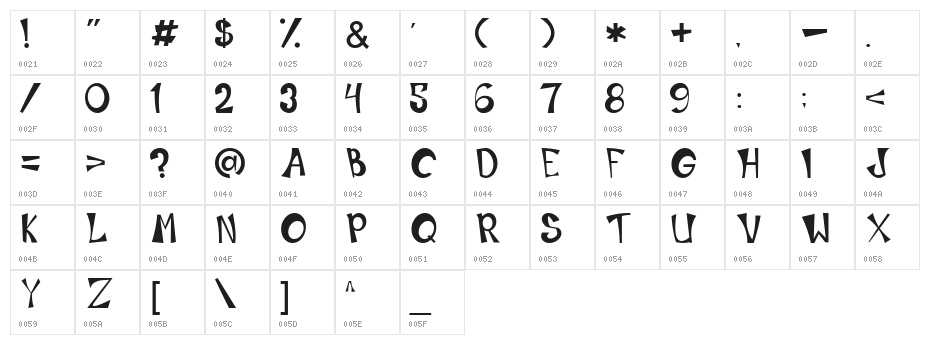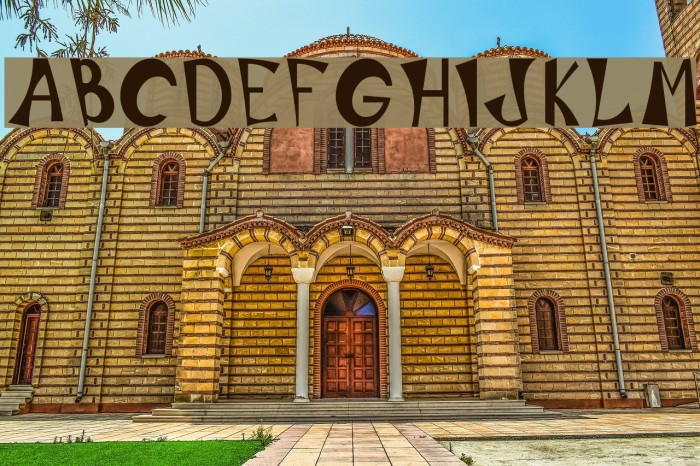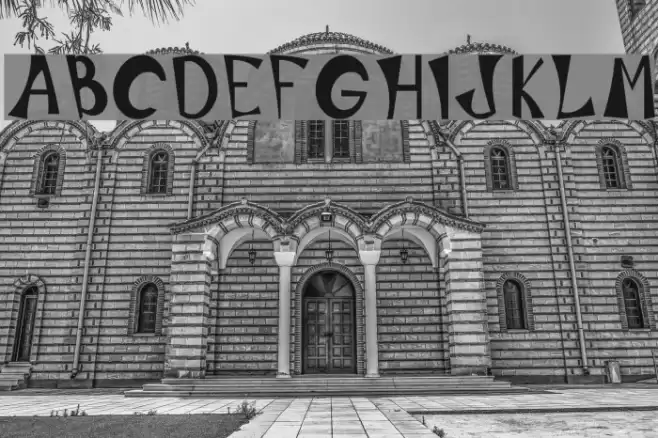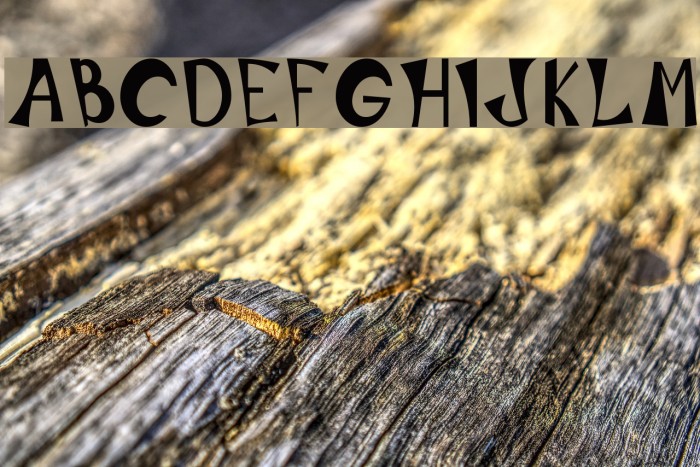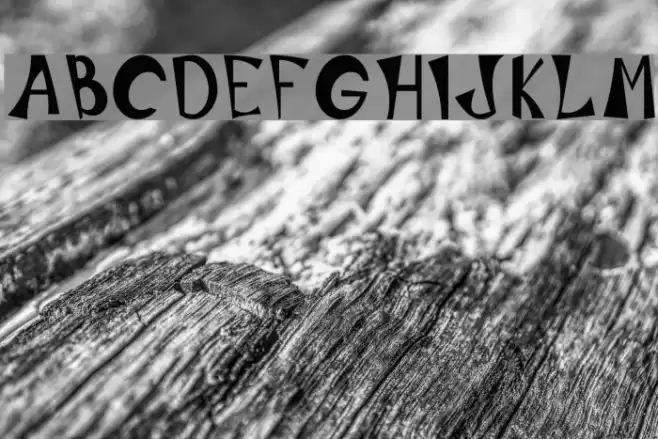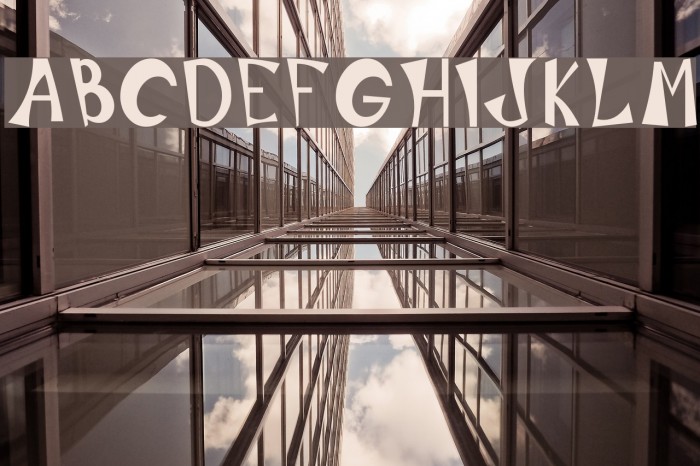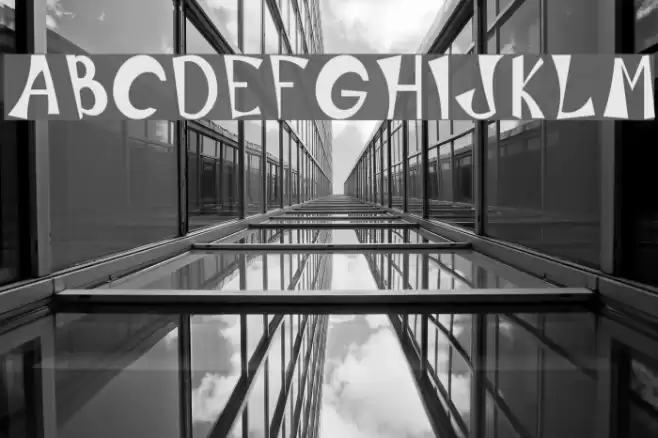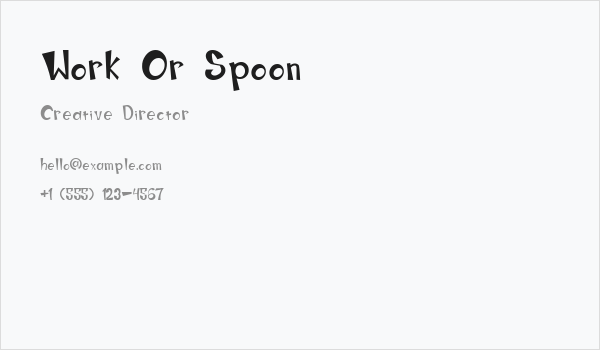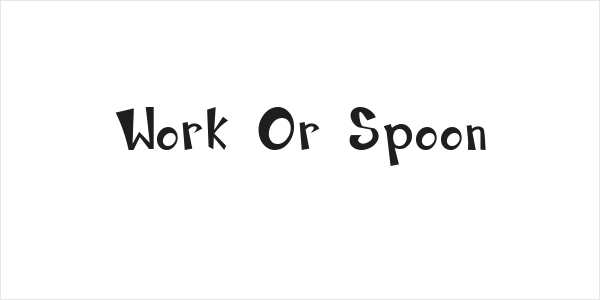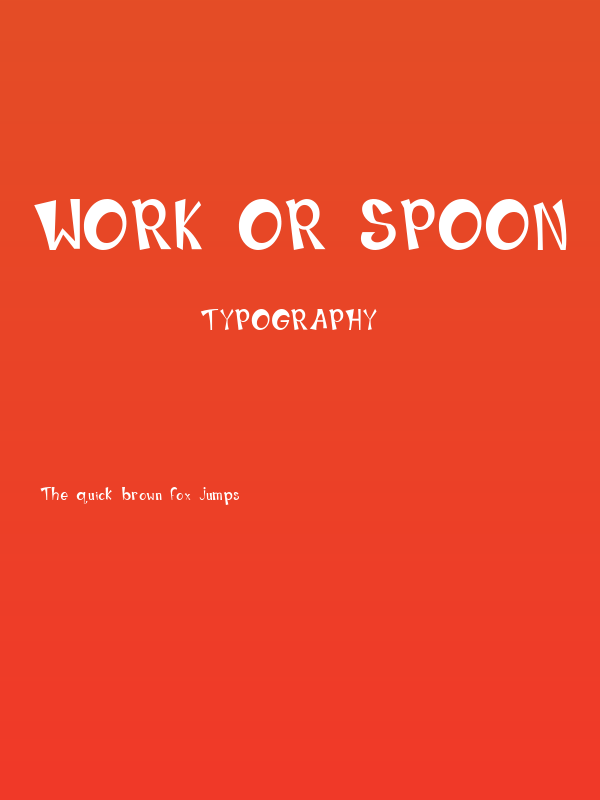
Work Or Spoon Font
Work Or Spoon Description
This playful and whimsical font features a unique blend of irregular shapes and varying stroke widths, creating a lively and dynamic appearance. The characters are bold and slightly exaggerated, with some letters having a quirky, almost cartoonish flair. The uppercase letters are particularly distinctive, with sharp angles and curves that add to the font's overall charm. The lowercase letters maintain the same playful style, with a mix of rounded and angular forms. Numbers and special characters follow the same design principles, ensuring consistency throughout. This font is perfect for projects that require a fun and engaging look.
WORK-OR-SPOON UPPERCASE
WORK-OR-SPOON LOWERCASE
WORK-OR-SPOON OTHER CHARS